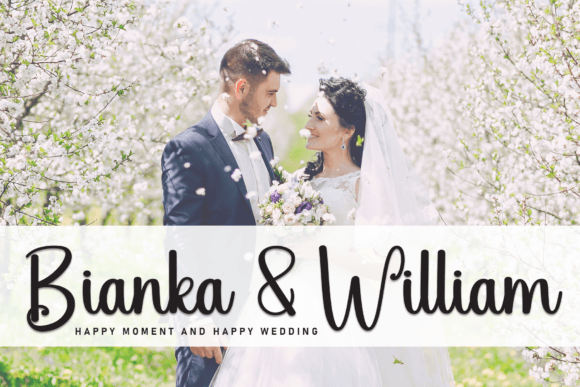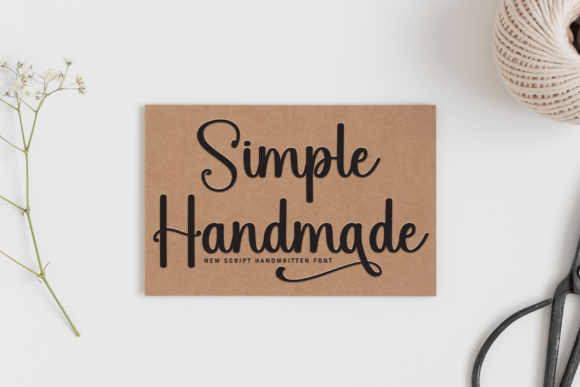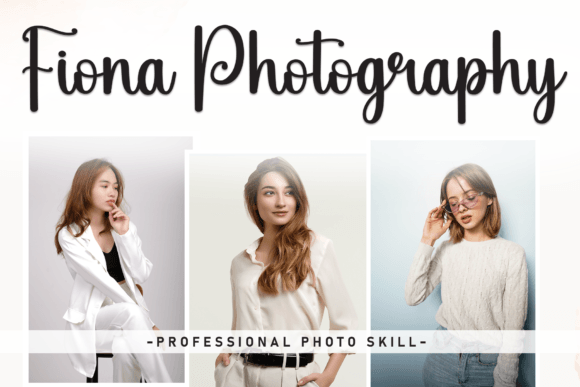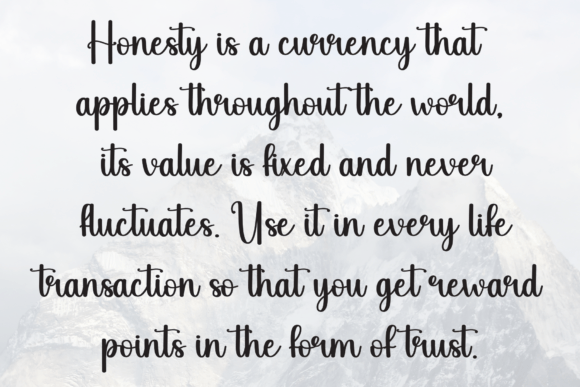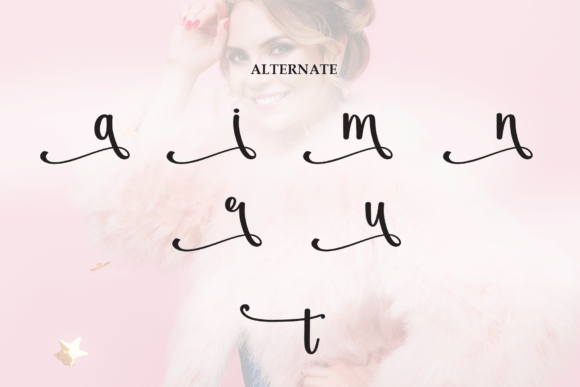
Unleashing Your Inner Artist with the Beauty Barbie Font
As a designer, there’s nothing quite like the thrill of discovering a new font that sparks your creativity. It’s like stumbling upon a hidden treasure in a sea of digital fonts – a eureka moment that sets your imagination ablaze. For me, that moment came when I discovered the Beauty Barbie Font, a sweet and friendly handwritten display font that’s perfect for adding a touch of whimsy to any design.
The Beauty Barbie Font is a delightful addition to any designer’s toolkit, offering a cute and fun aesthetic that’s ideal for wedding invitations, cards, and other designs that require a playful touch. Its versatility makes it a valuable asset for designers looking to add a personal touch to their work, and its ease of use makes it accessible to creatives of all skill levels.
Beauty Barbie Font Key Features
- Unique Characteristics: Includes cursive and script styles, ideal for creative and decorative text
- Font Style: Elegant and feminine font, perfect for beauty, fashion, and lifestyle-related projects
Beauty Barbie Font Review
As a designer, I was initially drawn to the Beauty Barbie Font due to its unique and playful style. The font’s curves and lines are reminiscent of the classic Barbie doll aesthetic, making it a great choice for projects that require a touch of femininity and whimsy. ✨
- Unique style: Beauty Barbie Font stands out from more traditional sans-serif fonts, making it perfect for designs that require a bit of flair.
- Legibility: Despite its ornate design, the font is surprisingly easy to read, even at smaller sizes.
- Fun and feminine: The font’s curves and lines evoke a sense of playfulness and femininity, making it a great choice for designs targeting a female audience.
- Limited versatility: While the font is perfect for certain projects, it may not be the best choice for more serious or professional designs.
- Overuse: Due to its unique style, the font can be overused if not used sparingly, leading to a lack of impact.
- Distortion: At very small sizes or when used in certain contexts, the font can become distorted, losing its intended effect.
Overall, I would give the Beauty Barbie Font 4 out of 5 stars. While it’s a great choice for certain projects, it may not be suitable for all designs. With careful use and consideration of its limitations, this font can add a touch of whimsy and personality to your designs. ⚠️
For best results, use the Beauty Barbie font in bold or italic styles to add emphasis.
Pair the font with a contrasting color scheme to make it stand out.
The Beauty Barbie font is ideal for:
Beauty and fashion-related designs.
Childhood and feminine-themed designs.
Wedding and event invitations.
Alternatives to “Beauty Barbie Font” for Designers
Great Vibes is a modern, elegant script font that is perfect for adding a touch of sophistication to your designs. It’s ideal for use in fashion, beauty, and lifestyle branding, as well as for creating invitations, posters, and other promotional materials. Great Vibes is a great alternative to Beauty Barbie Font because it offers a more refined and sophisticated look, making it suitable for a wider range of applications.
Pacifico is a beautiful, handwritten font that is reminiscent of a tropical getaway. It’s perfect for use in beach-inspired designs, travel branding, and for creating a relaxed, laid-back atmosphere. Pacifico is a great alternative to Beauty Barbie Font because it offers a more casual and effortless look, making it ideal for designs that require a carefree and summery feel.
Alex Brush is a elegant, handwritten font that is perfect for use in luxury branding, high-end fashion, and for creating invitations and other formal materials. It’s a great alternative to Beauty Barbie Font because it offers a more refined and sophisticated look, making it suitable for a wide range of high-end applications.
Dancing Script is a beautiful, elegant script font that is perfect for use in fashion, beauty, and lifestyle branding, as well as for creating invitations, posters, and other promotional materials. It’s a great alternative to Beauty Barbie Font because it offers a more refined and sophisticated look, making it suitable for a wide range of applications.
What is the recommended font size for using Beauty Barbie?
The recommended font size for using Beauty Barbie is between 12pt and 24pt, depending on the intended use and display resolution. For optimal readability, use the font at a size that is clear and legible on the target medium.